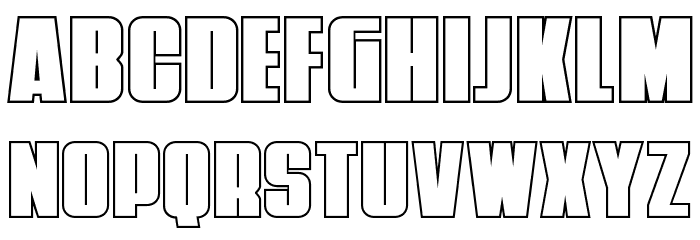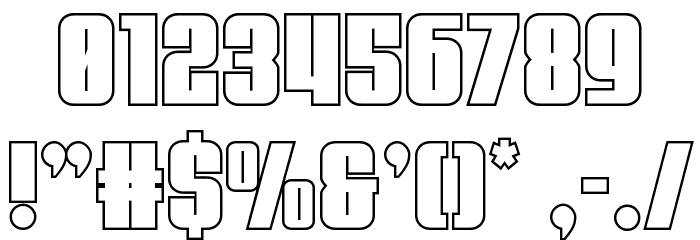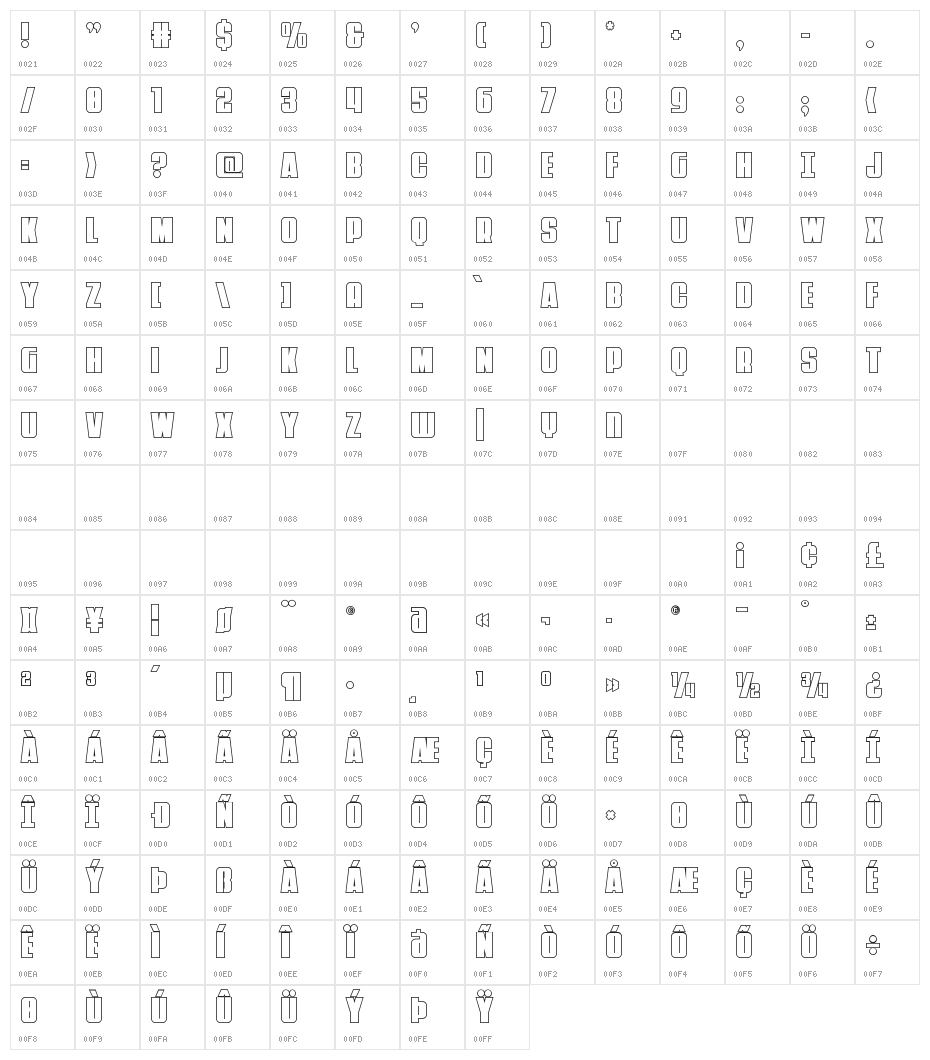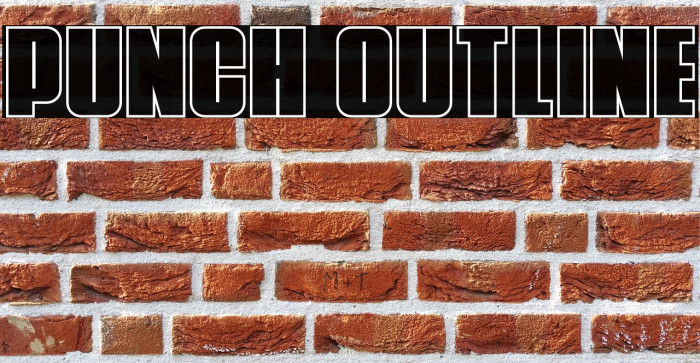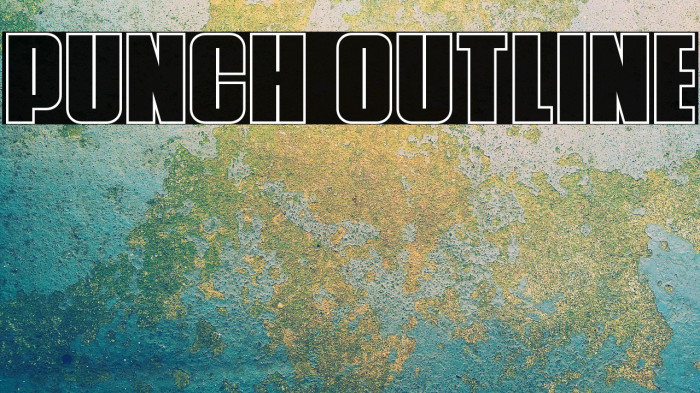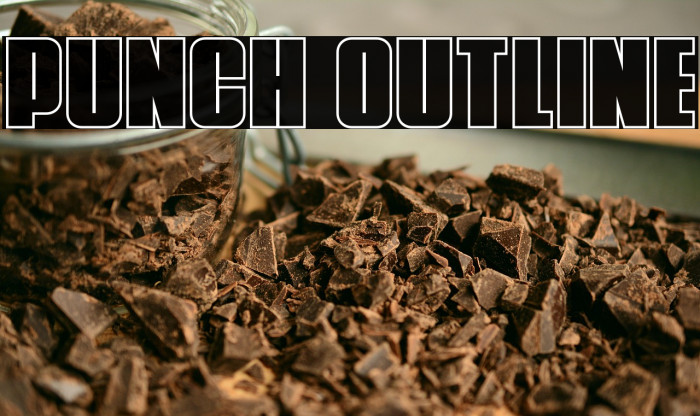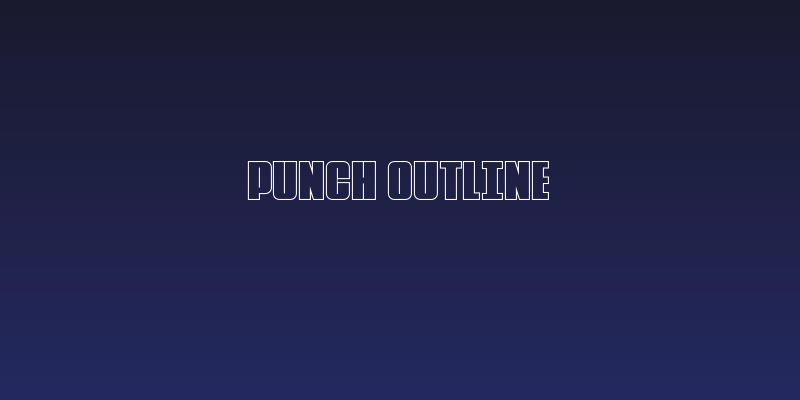
Punch Outline Font
This font features a bold, outlined style that emphasizes each character with a strong presence. The uppercase and lowercase letters are designed with a consistent width, creating a uniform and cohesive look. The numbers and special characters maintain the same bold outline, ensuring readability and impact. The font's geometric structure and clean lines make it suitable for attention-grabbing designs. Its distinct outline style adds a layer of depth and dimension, making it ideal for projects that require a standout typographic element.
A bold, outlined font with geometric structure and clean lines.
- Font: Punch Outline
- Proposed Projects: Ideal for posters, headlines, logos, and any design requiring a strong visual impact.